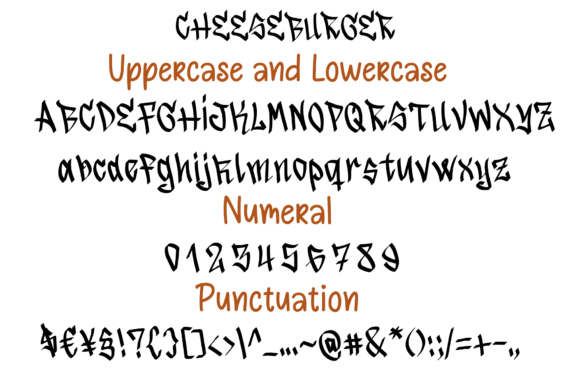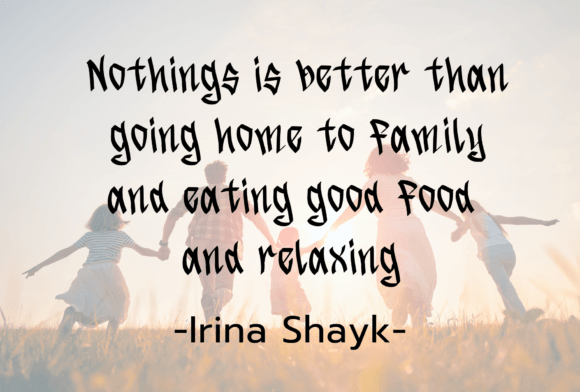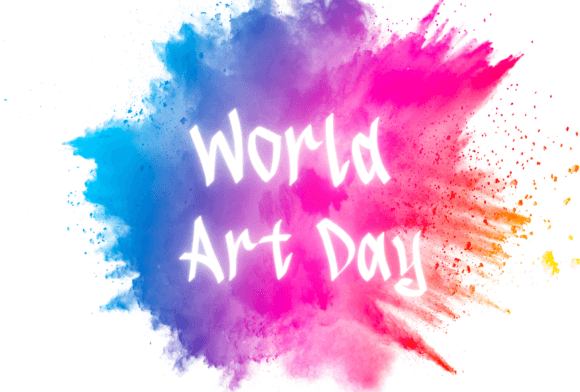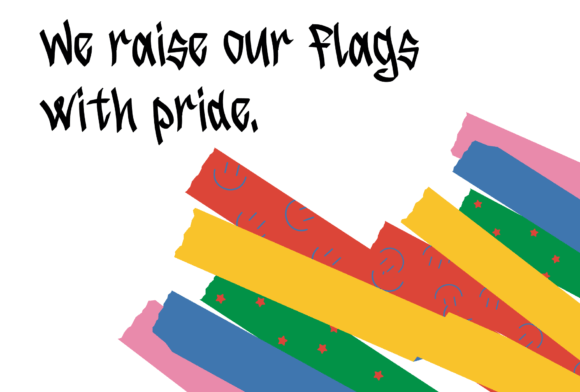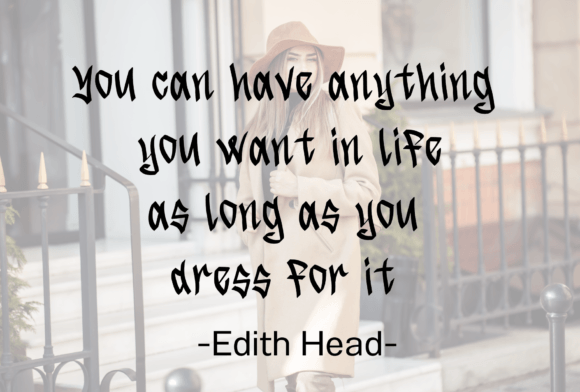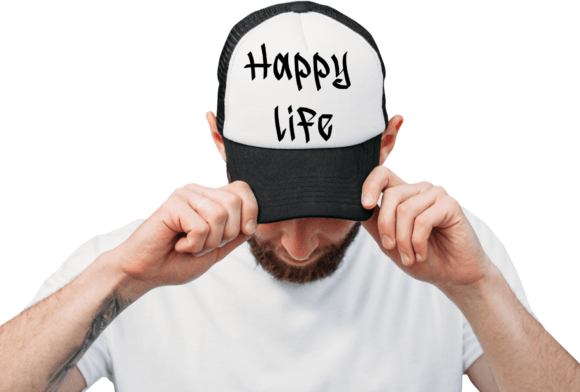
Unleashing Urban Edge: The Cheeseburger Font Revolution
In the realm of typography, few fonts have managed to capture the essence of urban style and flamboyant flair as effectively as the Cheeseburger font. This unique typeface seamlessly blends the raw, edgy vibe of graffiti art with the classic, bold lines of traditional black letter typography. The result is a versatile and eye-catching font that has become a favorite among designers and crafters looking to infuse their projects with a distinctive twist.
The Birth of a Style Icon
The Cheeseburger font is more than just a collection of letters; it’s an attitude, a statement, and a style quotient booster. Its origins may be rooted in the digital age, but its appeal is timeless, echoing the rebellious spirit of street art while embracing the accessibility of modern design tools. This font has quickly become a staple in the world of fashion and design, adorning everything from casual wear like t-shirts and hats to more utilitarian items such as tote bags and posters.
Versatility Unleashed
One of the key advantages of the Cheeseburger font is its incredible versatility. Whether you’re designing for streetwear, creating custom accessories, or working on a branding project, this font can add a layer of sophistication and edge that’s hard to achieve with more traditional typefaces. Its bold, expressive letters can stand alone or complement other design elements, making it a valuable tool for designers looking to push the boundaries of their creativity.
Applications in Fashion and Design
The application of the Cheeseburger font in fashion and design is vast and varied. Here are a few ways designers and crafters can utilize this dynamic font:
- Streetwear and Apparel: Add a Cheeseburger twist to t-shirts, hoodies, and hats for a look that’s both urban and on-trend.
- Accessory Design: From tote bags and backpacks to phone cases and laptop skins, this font can elevate everyday items into fashion statements.
- Branding and Packaging: Use the Cheeseburger font to give your brand or product a distinctive identity that’s bold, modern, and memorable.
- Graphic Design: Incorporate this font into posters, flyers, and digital graphics to add a touch of urban chic.
Embracing the Unconventional Charm
The Cheeseburger font is not just about aesthetics; it’s about attitude and expression. It embodies a carefree spirit and a willingness to break away from the norm. For designers and crafters, this font offers a chance to experiment and explore new creative avenues. Whether you’re looking to provoke thought, evoke emotion, or simply stand out in a crowded marketplace, the Cheeseburger font provides the tools to make your message loud and clear.
Letting Your Creativity Run Wild
With the Cheeseburger font, the possibilities are endless. Here are a few tips for designers and crafters looking to get the most out of this inspired typeface:
- Experiment with Colors: While the bold lines of the Cheeseburger font make it striking in black and white, experimenting with color can add an extra dimension of style and appeal.
- Play with Textures: Combining the font with different textures can enhance its urban feel and add depth to your designs.
- Mix and Match: Don’t be afraid to pair the Cheeseburger font with other typefaces or design elements to create something truly unique.
The Cheeseburger font is a vibrant and dynamic typeface that brings an urban edge and a dash of flamboyance to any design project. Its fusion of graffiti artistry with traditional black letter typography makes it a standout in the world of fonts, offering endless possibilities for creative expression. Whether you’re a seasoned designer or a DIY crafter, the Cheeseburger font invites you to lose yourself in its unconventional charm and let your creativity run wild. So, dive into the world of Cheeseburger and discover how this inspired font can transform your designs into bold statements of style.